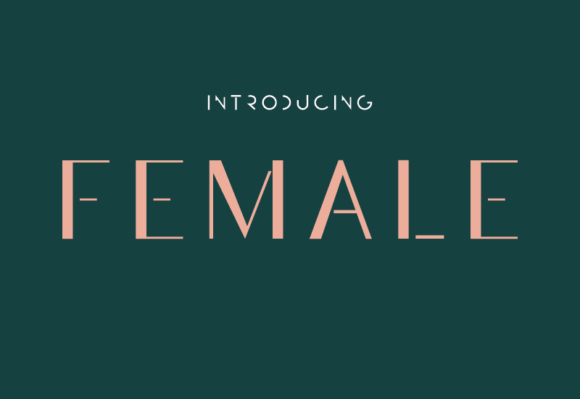
Introducing Female Font, the ultimate choice for those seeking the best fonts for design resume. Created by the talented team at GraphicsNinja, this cool and modern sans-serif font is here to revolutionize your creative projects.
With Female Font, your designs will effortlessly stand out from the crowd. This font exudes a sense of confidence and sophistication that will captivate your audience and leave a lasting impression. Its daring dance of contrasts and creativity sets it apart from ordinary fonts, making it a must-have for any design enthusiast.
Each letter in Female Font is a masterpiece in itself. Crafted with bold decisions and sharp edges, they are reminiscent of a master craftsman's chisel. The clean, angular incisions create a mesmerizing interplay of light and shadow, injecting a dynamic energy into every character. Your words will come alive, demanding attention and conveying your message with utmost clarity.
But Female Font is not just visually stunning; it also offers a seamless reading experience. Its well-designed letterforms ensure optimal legibility, making it perfect for resumes, portfolios, and other professional documents. Impress potential employers with a font that not only showcases your creativity but also communicates your professionalism.
Whether you're a designer, a writer, or someone seeking to elevate their visual content, Female Font is your ultimate companion. It seamlessly blends style and substance, allowing you to effortlessly express your unique personality and captivate your audience. Let this font be the voice of your creativity, guiding you towards success.